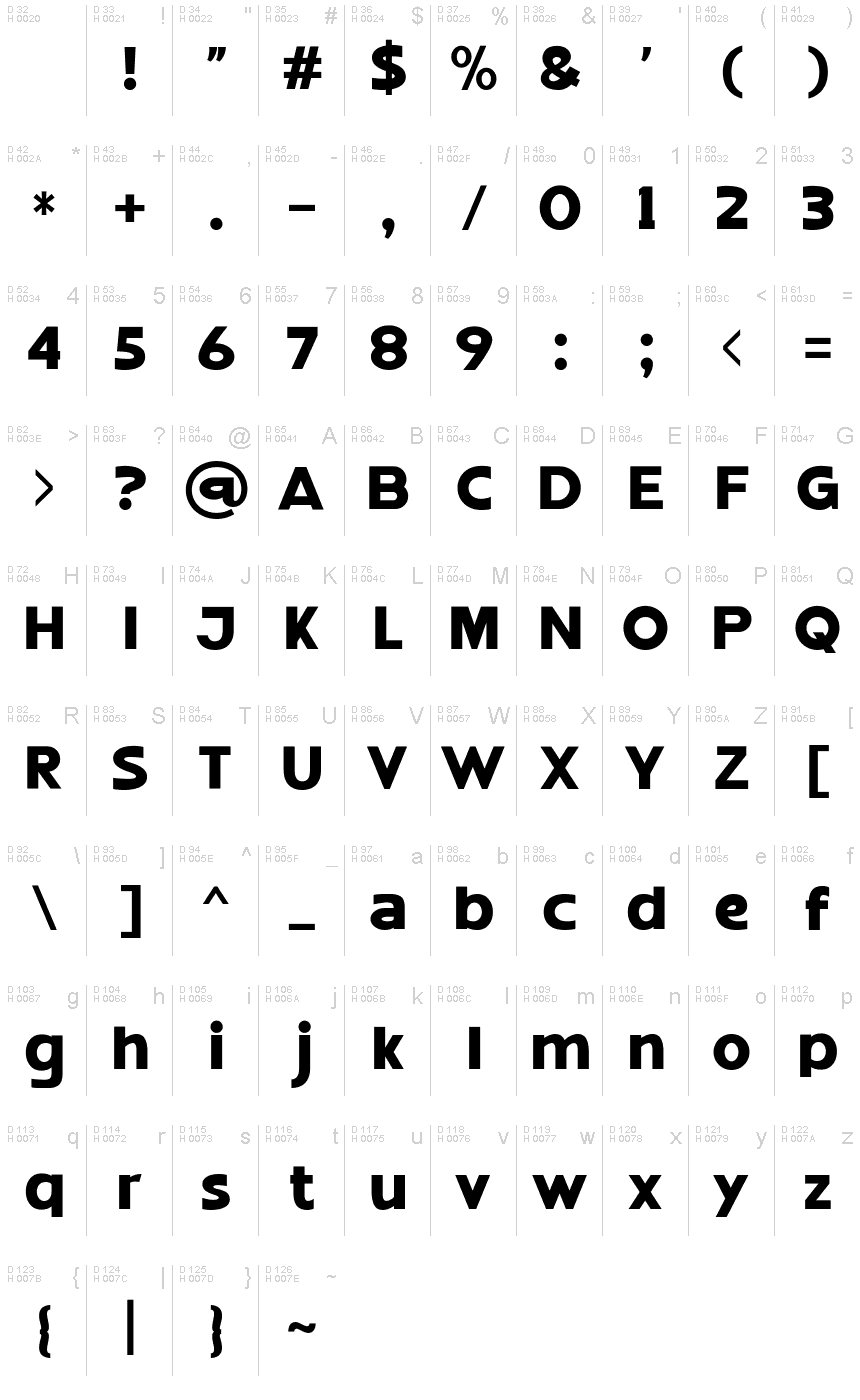
Beam Visionary
Beam Visionary is a bold and striking sans serif font designed by ToniStudio. With its semi-expanded width, this versatile typeface is suitable for a wide range of projects. Its clean and modern design makes it perfect for branding, logo design, editorial layouts, and website headers. Whether you're creating a contemporary fashion magazine or an innovative tech startup's website, Beam Visionary will bring a sense of confidence and sophistication to your designs. Stand out from the crowd with this font that combines readability with style.